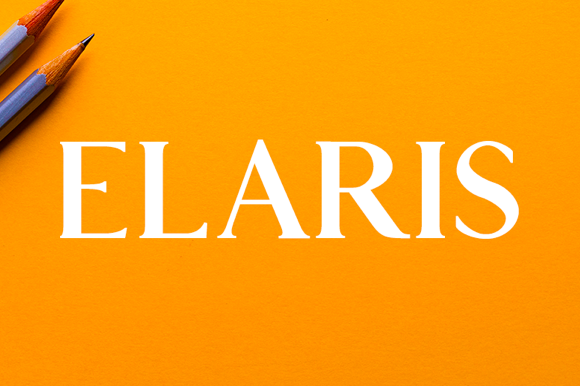
Free Elaris Serif Typeface
Grab this breathtaking free elaris serif typeface into your repertoire. Give a boost to your designer life. Free Design Resources has created this amazing and beautiful free font. This is absolutely beautiful font so you can easily make world-class designs.